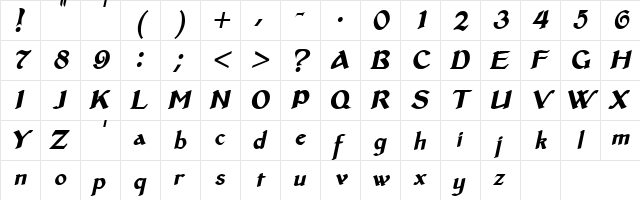
MiddleAges HeavyItalic
Design Context for MiddleAges Typeface
MiddleAges takes a measured approach to typography — its balanced proportions and neutral character make it a reliable workhorse for both digital and print work. Its italic angle brings a sense of urgency and motion to the letterforms.
Pro Tip: Use MiddleAges for emphasis, pull quotes, and subheadings where its slanted energy can add rhythm to the layout.